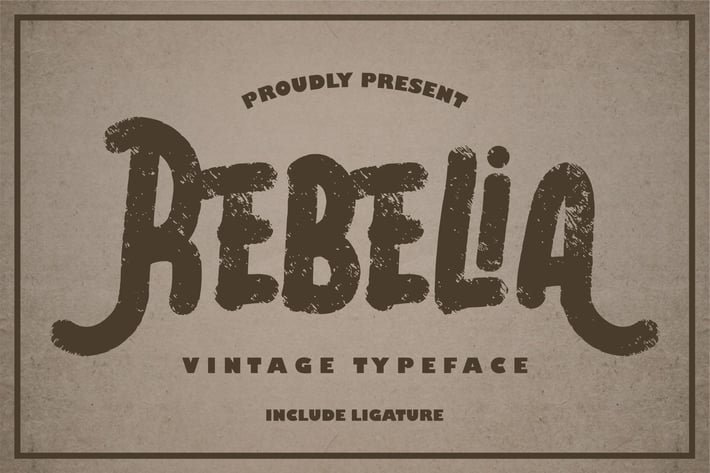
Rebelia | Vintage Typeface
Rebelia | Vintage Typeface with a calligraphy style, So beautiful on invitation like greeting cards, branding materials, business cards, quotes, posters, and more!